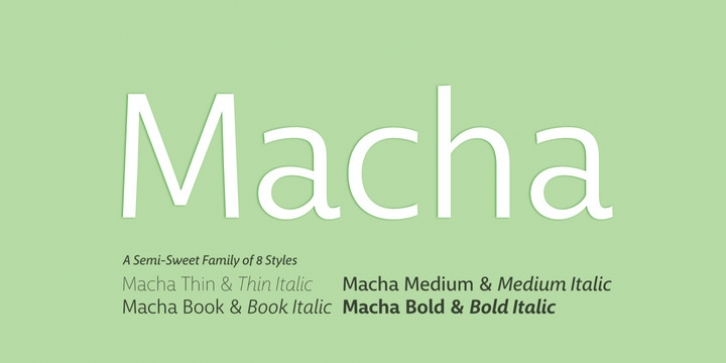
Macha shares the same DNA as its sibling Anago, but is a completely different species than the former or any of my other sans serifs (Aaux Next, Air, Akagi Pro or Wasabi). It’s no-nonsense construction bears many influences from Gill Sans and Frutiger while stubbornly blending my own humanist touch. The focus on developing Macha was just to get to the point with each letterform and discard the rest.